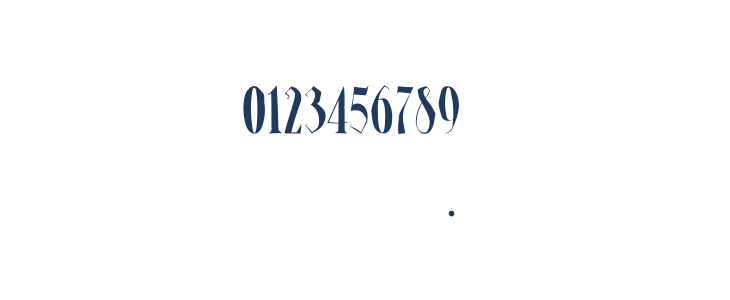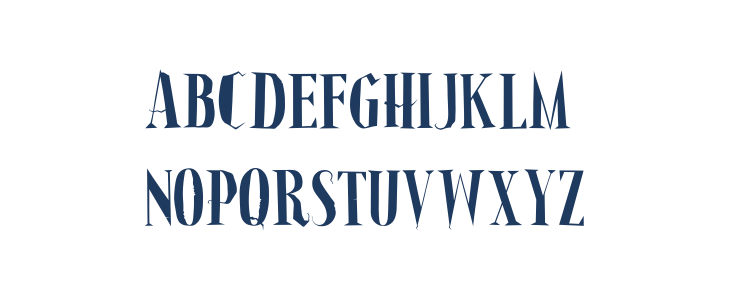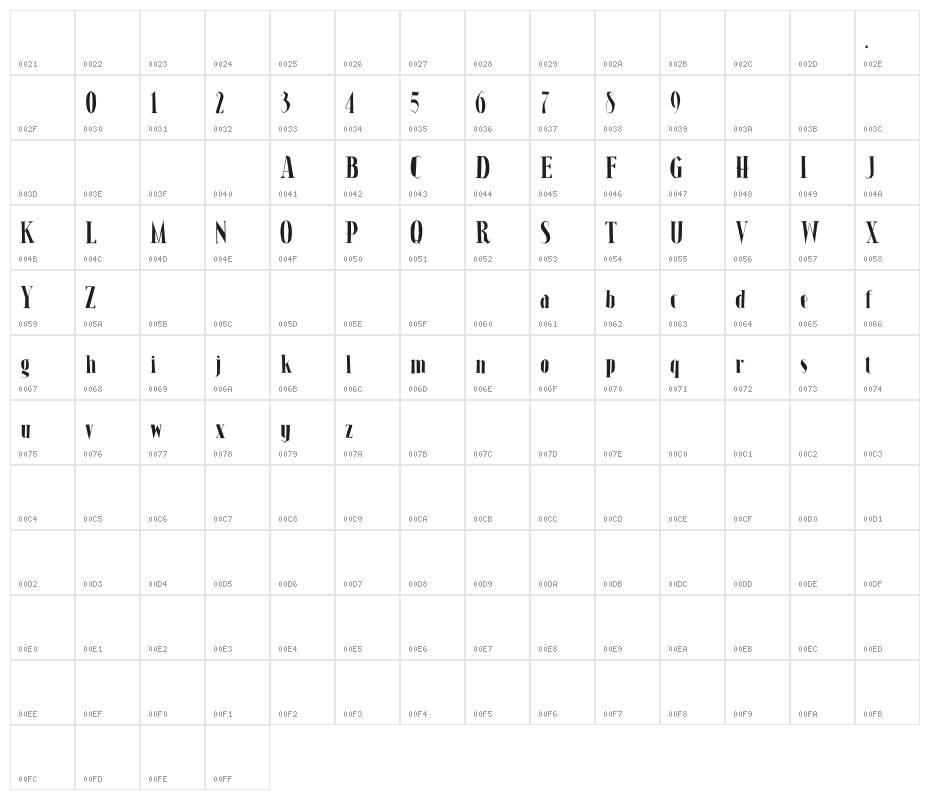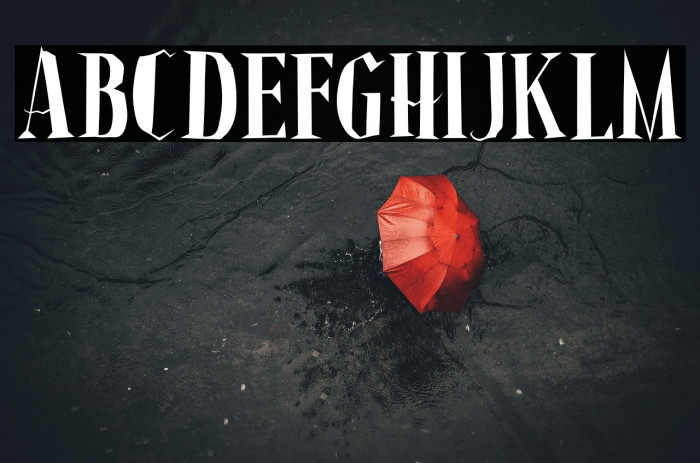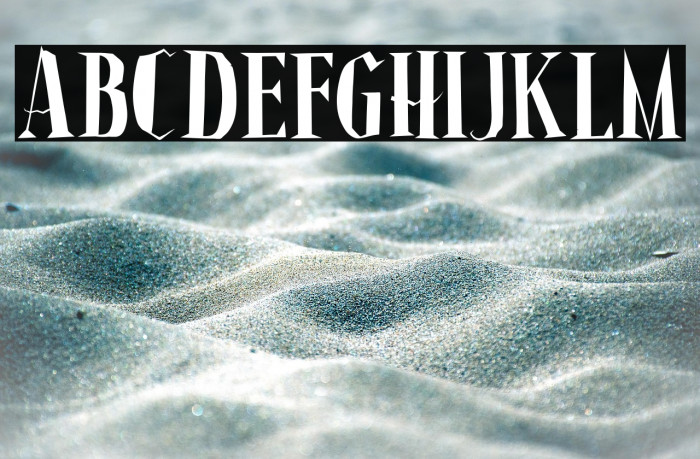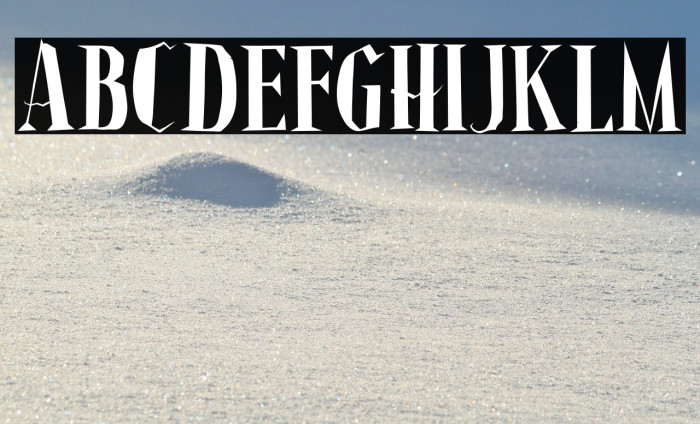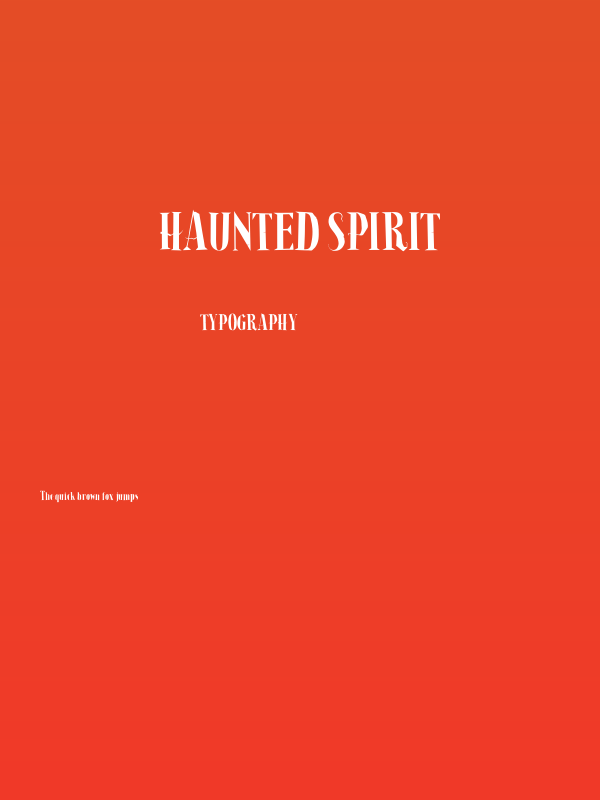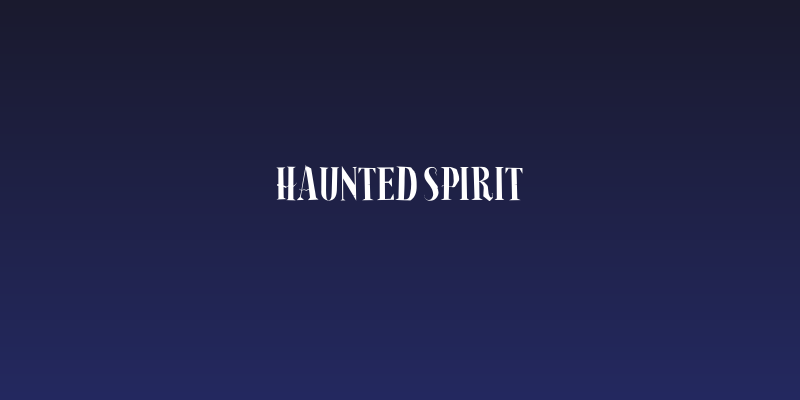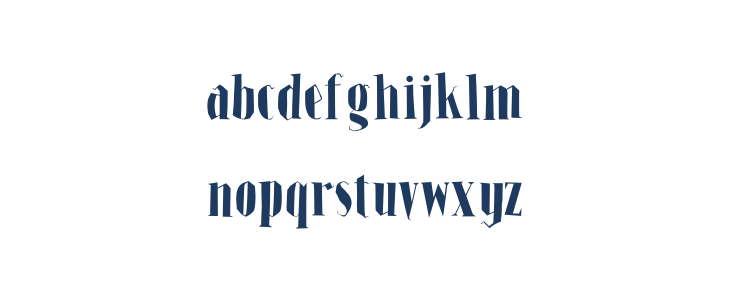
Haunted Spirit Font
Haunted Spirit Description
A decorative display font with irregular, jagged edges and uneven strokes, evoking a spooky or haunted atmosphere. The letterforms are tall and narrow with sharp points and varying stroke thickness, giving a distressed and eerie appearance.
| Overall Style | Decorative, Spooky, Distressed |
| Use Case | Headlines, Posters, Logos, Event Invitations |
| Proposed Projects | Halloween posters, horror movie titles, haunted house signage, themed party invitations, spooky branding. |